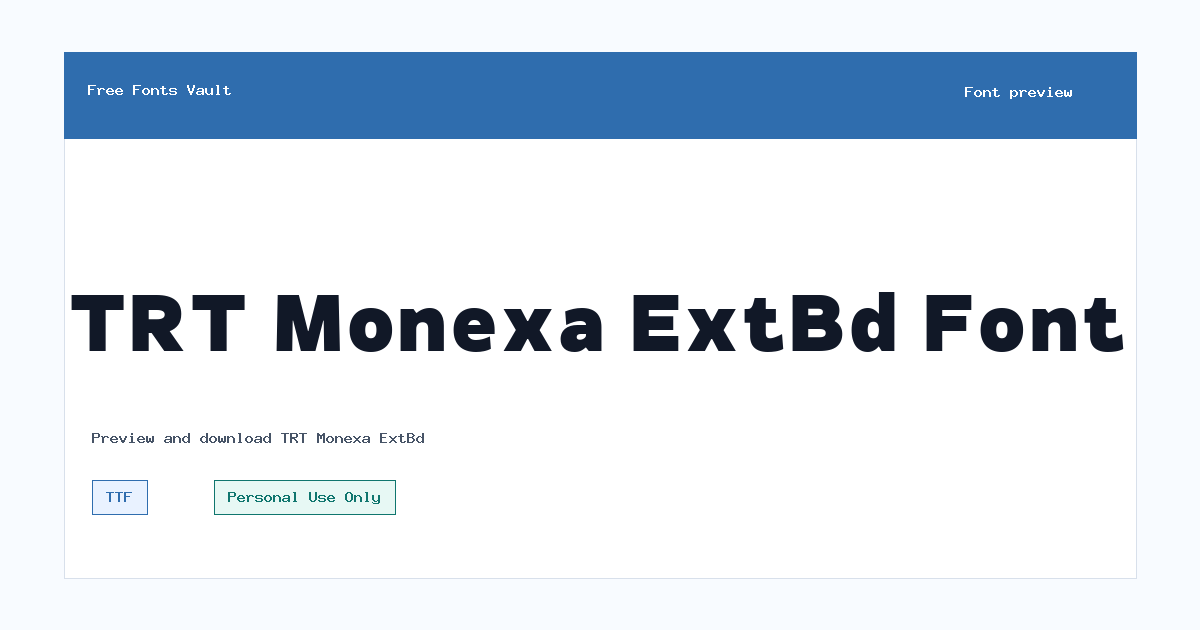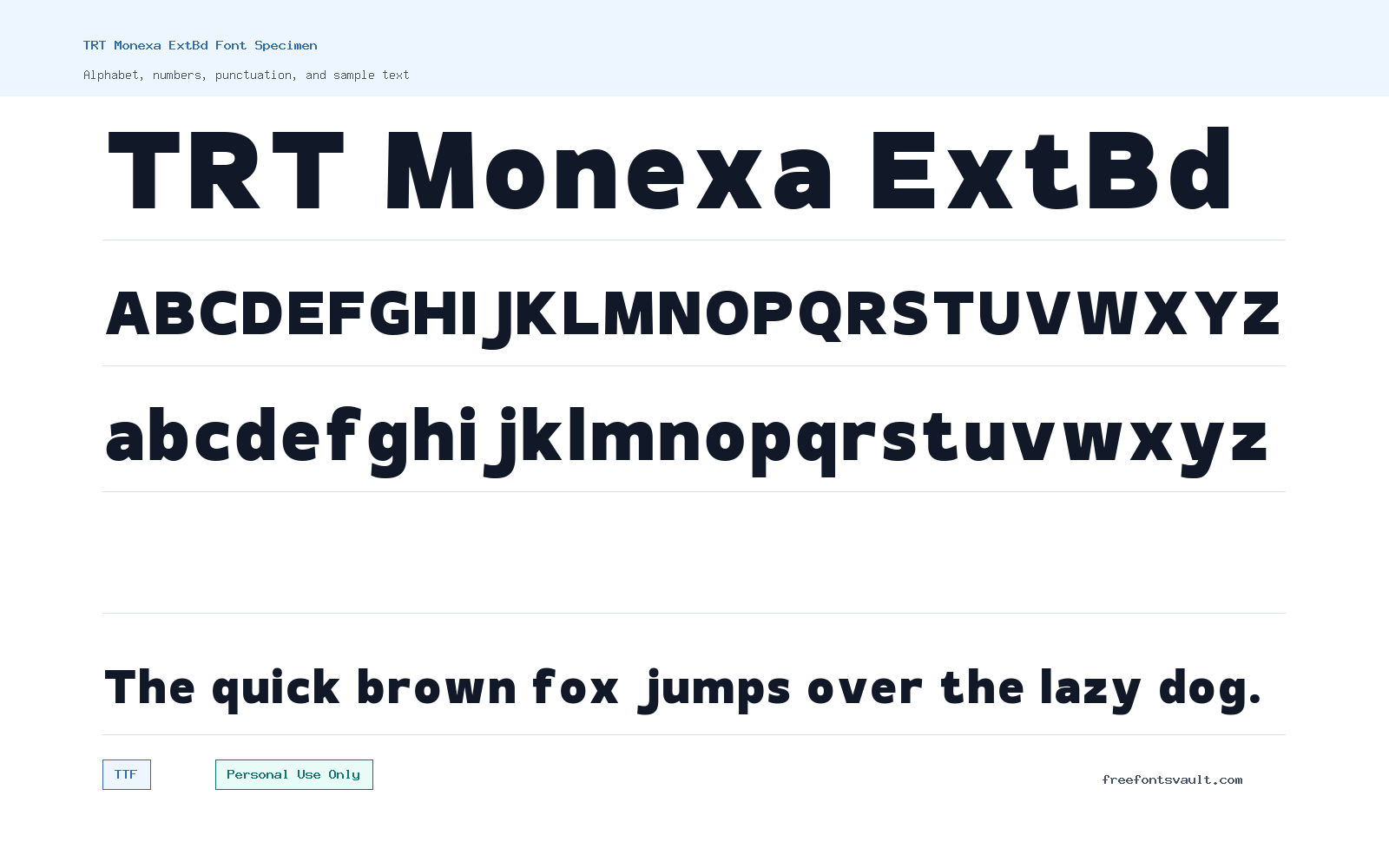
TRT Monexa ExtBd
- Designer Hanif Dwi Sulistyo of Truetype
- Foundry Truetype
TRT Monexa ExtBd is an extra-bold style from the TRT Monexa font family, designed for users who need strong, high-impact lettering in short display text. It is best approached as a headline and branding font rather than a long-reading text face, with a Personal Use Only license that should be checked carefully before any client, logo, product, or business project.
About TRT Monexa ExtBd
TRT Monexa ExtBd has the kind of weight that suits designs where the words need to hold the layout. The “ExtBd” name and ExtraBold font file point to a heavy style, so it makes the most sense for titles, poster lines, social graphics, mock brand marks, packaging concepts, and other places where a few words need clear visual presence. Because only one regular-style TTF variant is listed, it is practical to treat this as a focused display font rather than a full multi-weight family for complex typography systems. Use it where size and spacing can do the work: large headlines, short labels, hero text, and bold typographic compositions.
For visitors testing the font, start with the exact words you plan to use. Extra-bold fonts can look excellent in short names or punchy headlines, but they may feel dense in longer sentences. Try uppercase, title case, and a few punctuation marks in the preview before downloading. If you are exploring logo work, test the brand name at both large and small sizes, because heavy letterforms can lose clarity when reduced. For posters and web mockups, give the font enough breathing room with wider line spacing, clean margins, and a quieter companion typeface. A simple sans serif or readable serif can handle body copy while TRT Monexa ExtBd carries the main display line.
- Extra-bold display weight suited to short, prominent text such as headlines, poster titles, and mock brand marks.
- Poster titles and event-style graphics where one strong line of text needs attention.
- Logo concepts, wordmark drafts, and brand mockups made for personal exploration.
- Social media graphics, thumbnails, and banners with short, bold wording.
- Website hero mockups where the font is used as a large display heading.
- Packaging or label concept designs, especially when paired with simpler supporting text.
- Typography experiments where a heavy weight is the main visual element.
Use TRT Monexa ExtBd at larger sizes and keep the wording short. It is a better choice for display typography than for paragraphs, captions, or dense interface text. In logo or poster work, check the spacing between letters manually, especially around narrow and wide characters. For web mockups, pair it with a calm reading font and avoid using the extra-bold style for every heading level, otherwise the page can feel visually heavy. If you plan to use the font in a real website, app, merchandise design, brand identity, or client presentation, confirm that your license allows that use before launch or delivery.
What kind of font is TRT Monexa ExtBd?
It is listed as a sans serif font family style, and the available file is an ExtraBold TTF variant. It is best used as a bold display font for short text rather than long reading.
Does TRT Monexa ExtBd include multiple weights?
What should I pair TRT Monexa ExtBd with?
Pair it with a simpler, more readable font for body text, captions, menus, and longer descriptions. Let TRT Monexa ExtBd handle the main title or brand line while the companion font keeps the design easy to read.